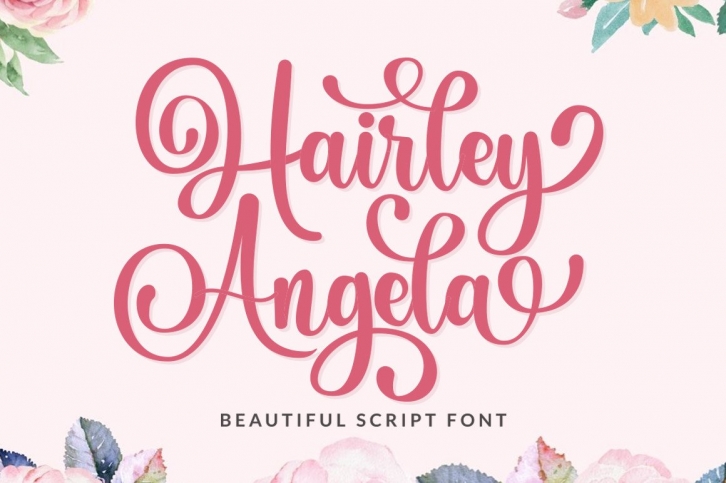
Hairley Angela is a graceful script font. Fall for its ravishing style and use it to create gorgeous wedding invitations, beautiful stationary art, eye-catching social media posts, and much more! Hairley Angela is PUA encoded which means you can access all glyphs and swashes with ease!